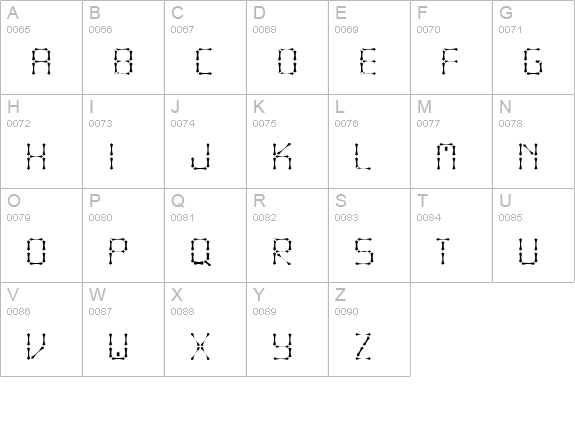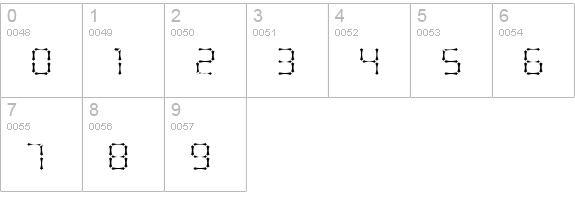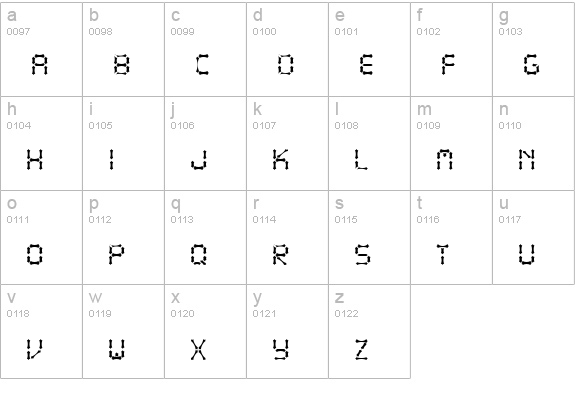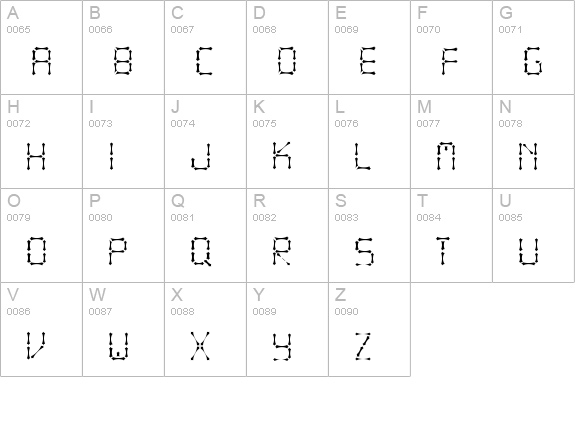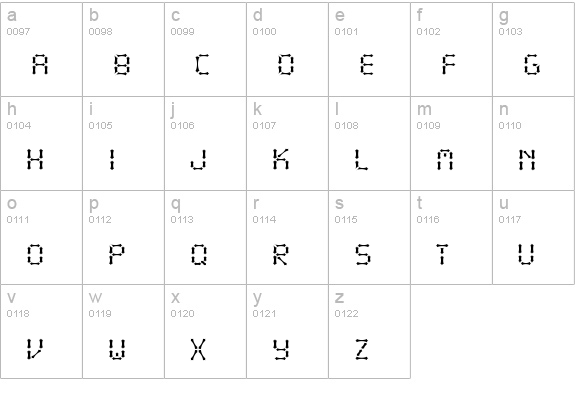
Pointy Iron Fence Font Details
Introducing Pointy Iron Fence font, a charming and unique typeface that exudes elegance and sophistication. This font features intricate details and sharp, pointed edges that give it a distinct and eye-catching appearance. With its sleek and modern design, Pointy Iron Fence is perfect for adding a touch of refinement to your projects. The best part? Pointy Iron Fence font is completely free to download at FontsMarket.com. This means you can easily access this stunning font for all your creative endeavors without any cost. Whether you're designing invitations, logos, posters, or any other project, Pointy Iron Fence font is sure to make a bold statement and elevate your designs to the next level. Don't miss out on this amazing opportunity to enhance your work with the beauty and sophistication of Pointy Iron Fence font. Download it now for free and let your creativity soar!